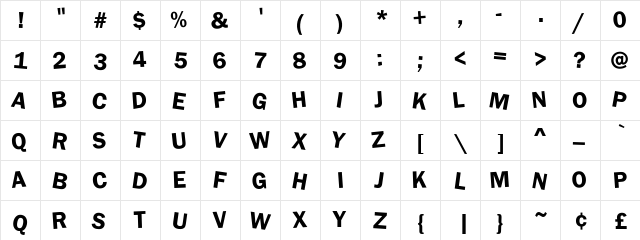
| Style | dDAFTt-UPPERcase |
| Designer | Bree Gorton & George Herbert Hirst |
Design Context for dDAFTt-UPPERcase Typeface
dDAFTt-UPPERcase offers clean, dependable letterforms without strong stylistic allegiance, making it a practical choice for designers who need flexibility.
Pro Tip: Use dDAFTt-UPPERcase in both headline and body roles to test its range before committing to a single application.